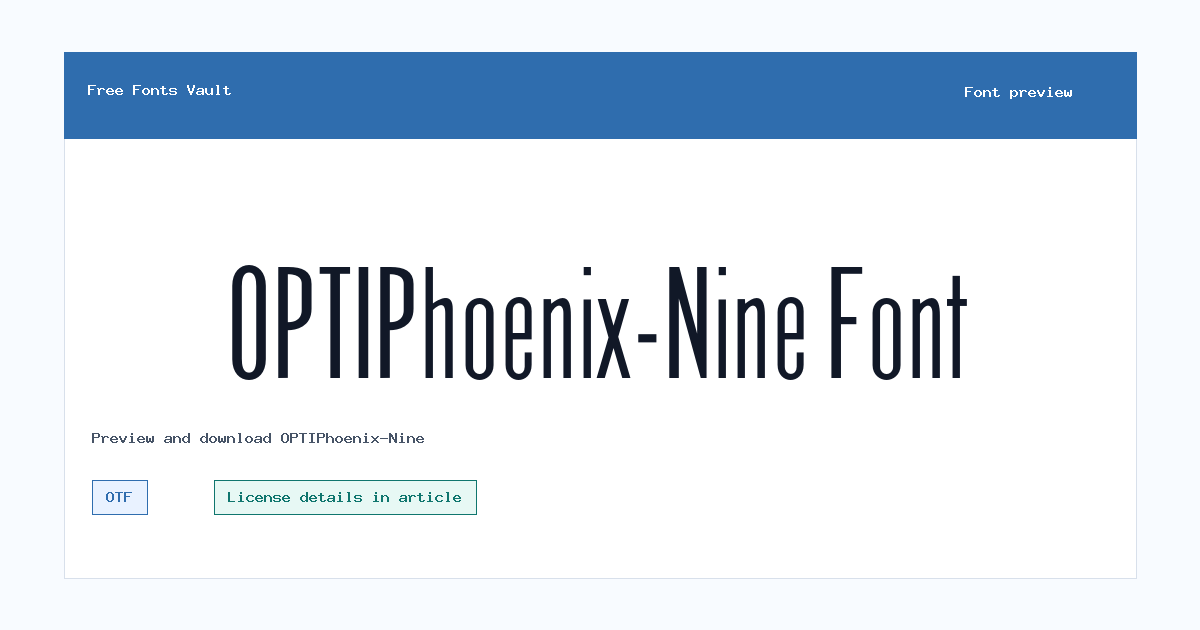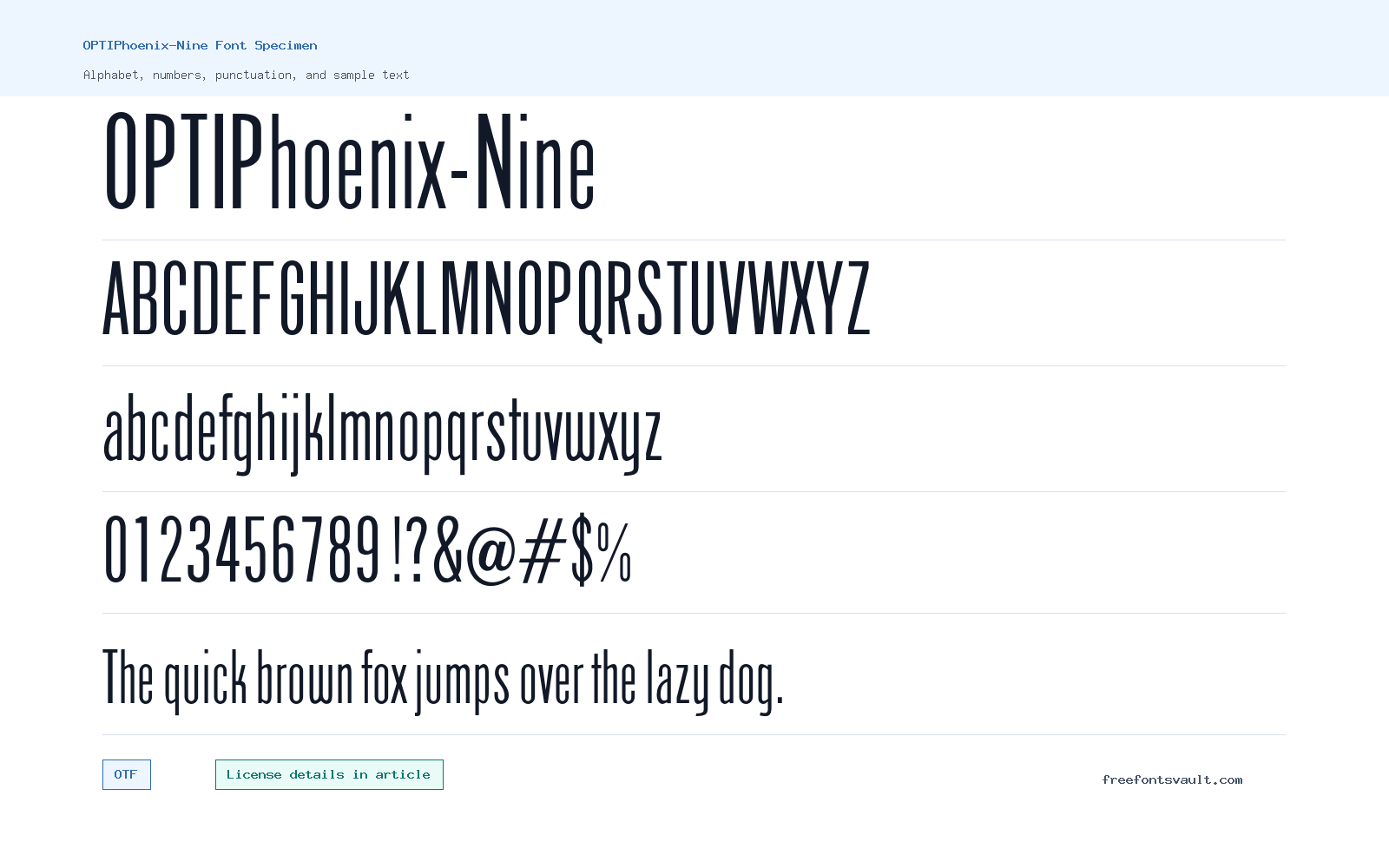
OPTIPhoenix-Nine
OPTIPhoenix-Nine font.
OPTIPhoenix-Nine is a single-style OTF font for designers who want to test a distinctive display face before downloading. It is best approached as an accent or headline option rather than a complete text family.
About OPTIPhoenix-Nine
OPTIPhoenix-Nine can be useful for short titles, nameplates, poster tests, graphic mockups, and display experiments where a single font style is enough. If the letters become too busy or uneven at small sizes, keep it for larger settings and choose a calmer companion font for descriptions, navigation, or paragraph text.
- Works best as a display or accent font for short text.
- Useful for previewing titles, labels, and graphic mockups.
- Short titles, nameplates, poster text, and cover mockups.
- Typography experiments where a single OTF style is enough.
- Display graphics that need a distinctive but controlled font choice.
Preview the exact text you plan to use. Try a title, numbers, punctuation, and any brand words at final size. If the spacing feels uneven, adjust tracking or reserve the font for one strong display moment.